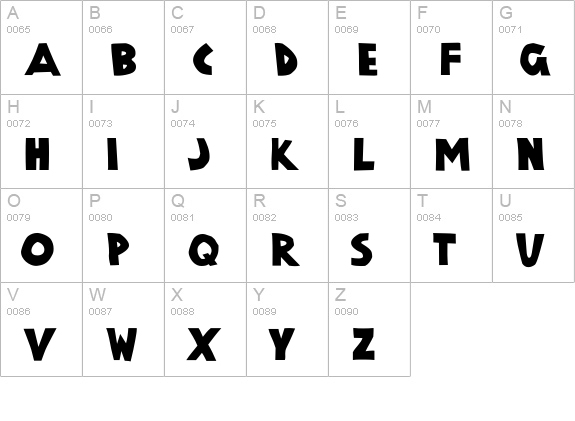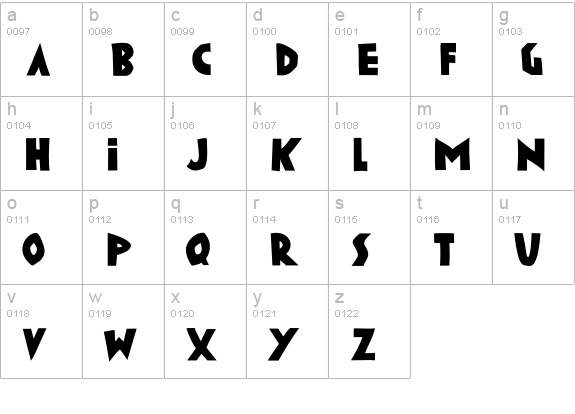
Vienna-Black is a maximum-weight, dramatic variant in the Vienna typeface family \xE2\x80\x94 well suited to maximum-impact headlines, posters, and packaging.
Vienna-Black is a stunning font that exudes elegance and sophistication. Its sleek and modern design is perfect for adding a touch of class to any project. The sharp lines and bold strokes of this typeface make it stand out, grabbing attention and leaving a lasting impression. What sets Vienna-Black apart is that it is not only visually appealing, but also free! Yes, you read that right. This incredible font is freely available to download at FontsMarket.com. Now, you can effortlessly enhance your designs without having to spend a dime. Whether you are designing a logo, creating a website, or working on a branding project, Vienna-Black will effortlessly elevate your work. Its versatility allows it to be used in a myriad of applications, from posters and invitations to headlines and product packaging. With Vienna-Black, you have the power to create eye-catching designs that captivate your audience. Its clean and legible letterforms ensure that your message is conveyed with clarity and precision. The font's balanced proportions and consistent spacing make it a pleasure to read, ensuring a seamless user experience. So why wait? Download Vienna-Black today from FontsMarket.com and unlock the potential to create visually stunning designs. With this free font in your arsenal, the possibilities are endless. Don't miss out on this incredible opportunity to enhance your designs with Vienna-Black.